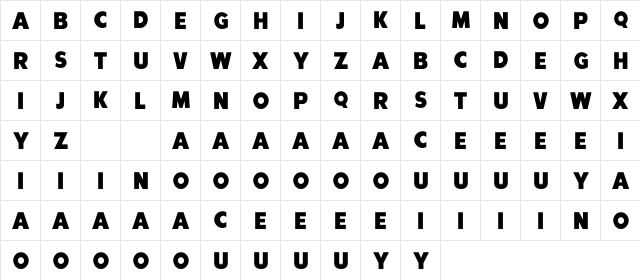
Le Bleu Jean Regular Font Preview
Le Bleu Jean Regular
Le Bleu Jean Regular Font Details
Design Context for Le Bleu Jean Typeface
Le Bleu Jean offers clean, dependable letterforms without strong stylistic allegiance, making it a practical choice for designers who need flexibility.